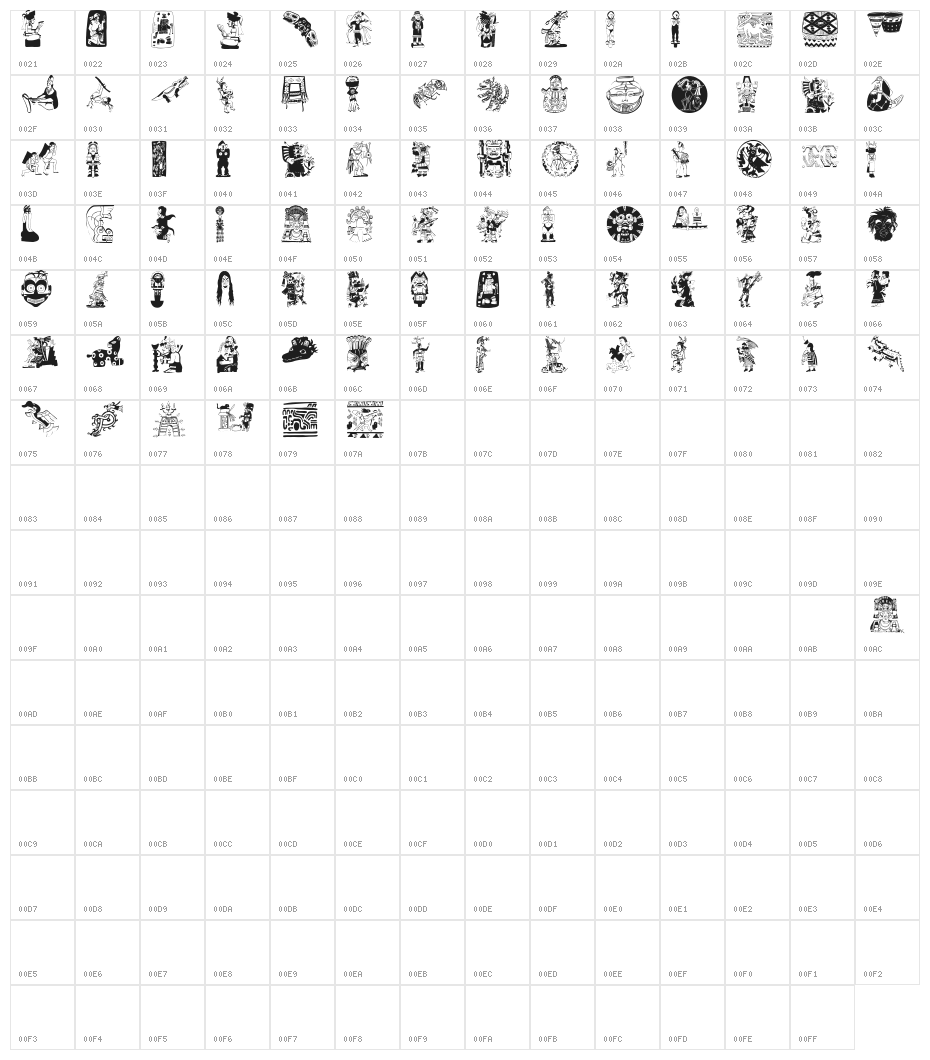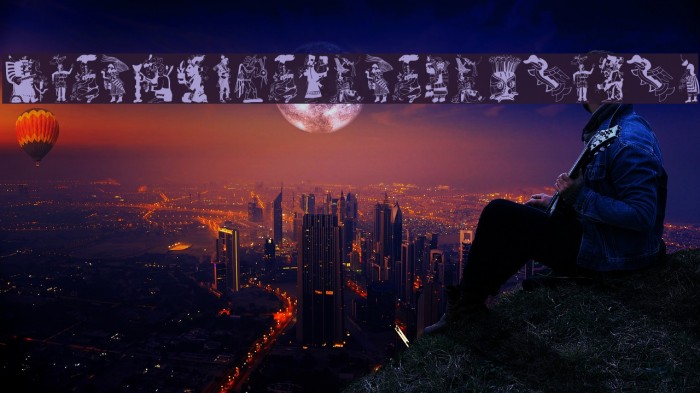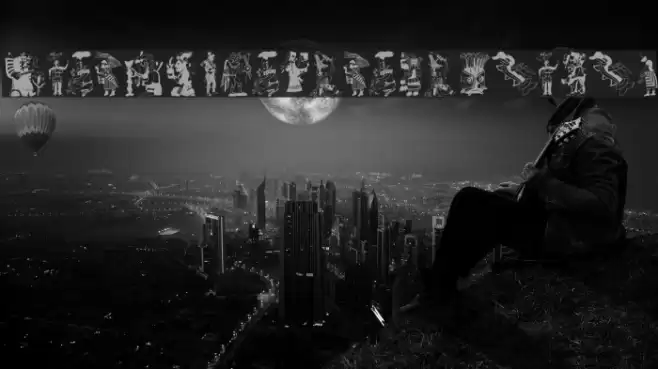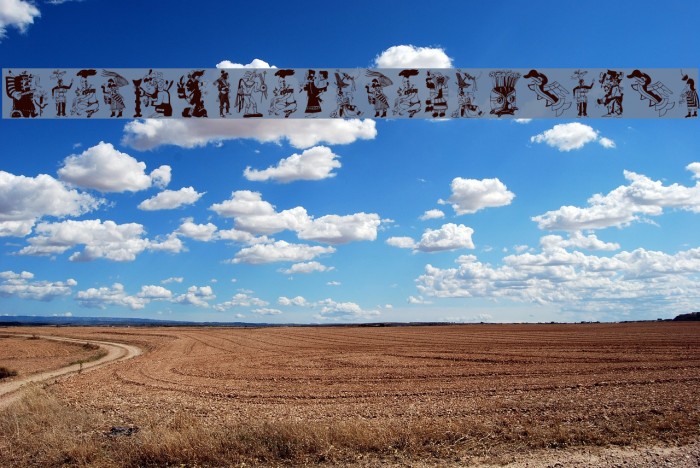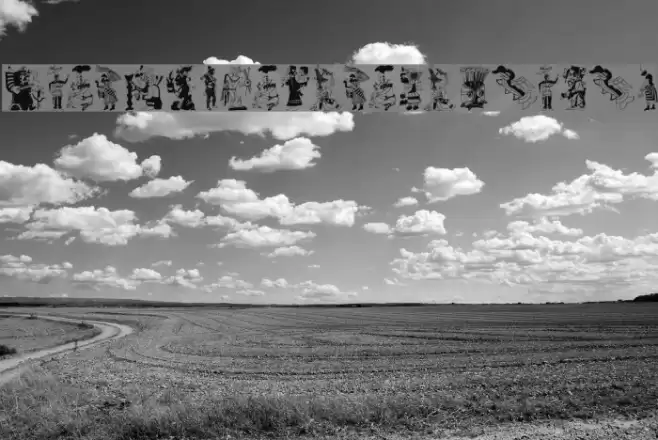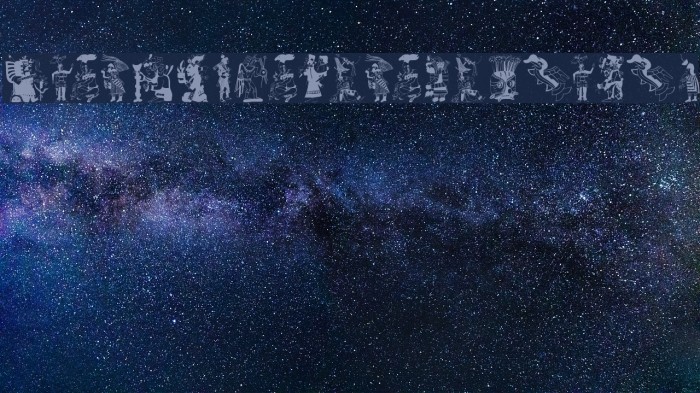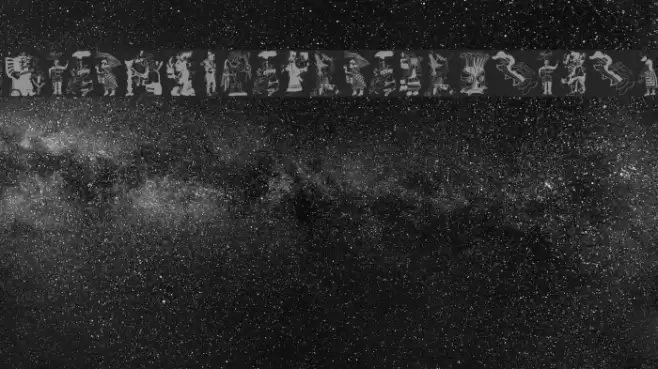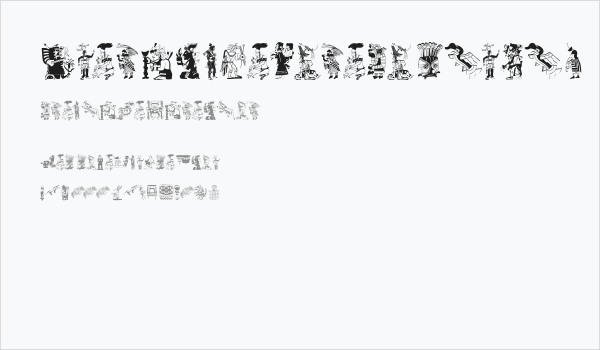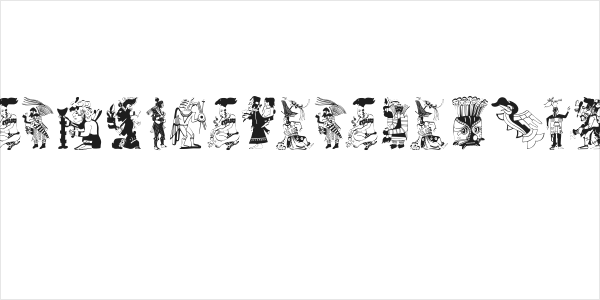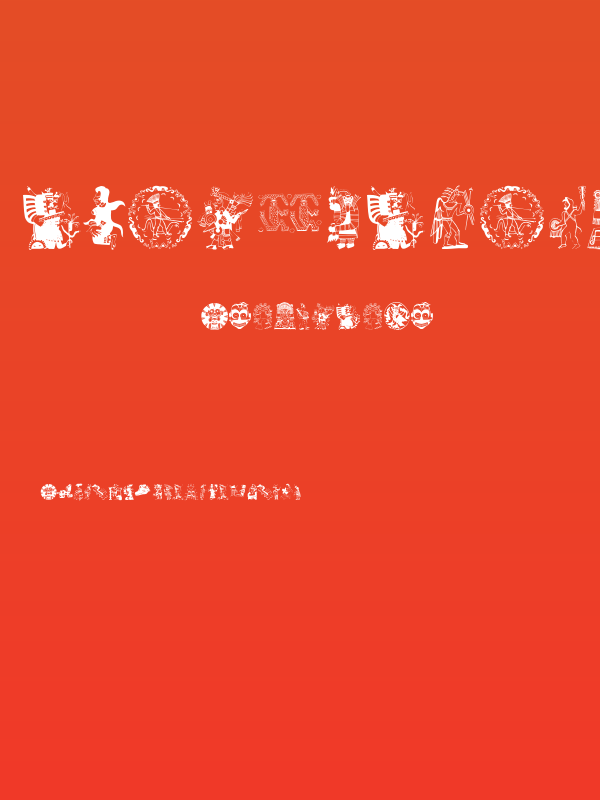
AmericaBeforeColumbus Font
AmericaBeforeColumbus Description
A highly decorative and illustrative typeface inspired by pre-Columbian American art, featuring intricate glyphs and pictorial representations rather than traditional letterforms. Each character is uniquely stylized with motifs reminiscent of indigenous American cultures, using bold black and white contrasts and detailed line work.
| Overall Style | Decorative, Historical, Ethnic |
| Use Case | Logos, Posters, Headlines, Themed graphics |
| Proposed Projects | Museum exhibits, educational materials, cultural posters, themed event branding, historical documentaries. |